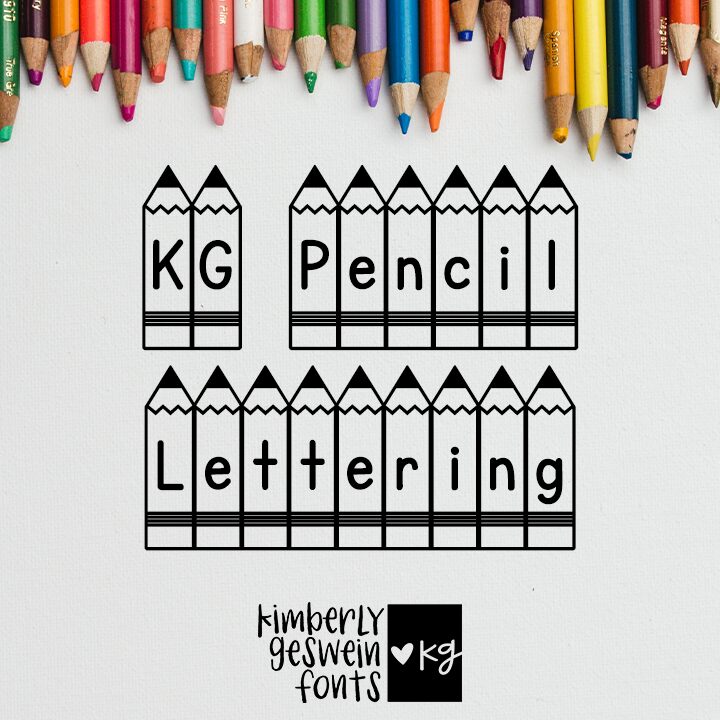
KG Pencil Lettering
KG Pencil Lettering font is a decorative display font designed by Kimberly Geswein. It draws inspiration from pencil lettering, and its style is whimsical and playful. Educational, friendly, and approachable are the main attributes describing this font which can be used to convey a childlike vibe.
Decorative design elements of this free display font make it suitable for children’s materials including kindergarten books, comics, learning apps, classroom presentations, posters and flyers among others. Use it to spice up promotional brochures for creative courses or even for educational fiction titles directed at teens.